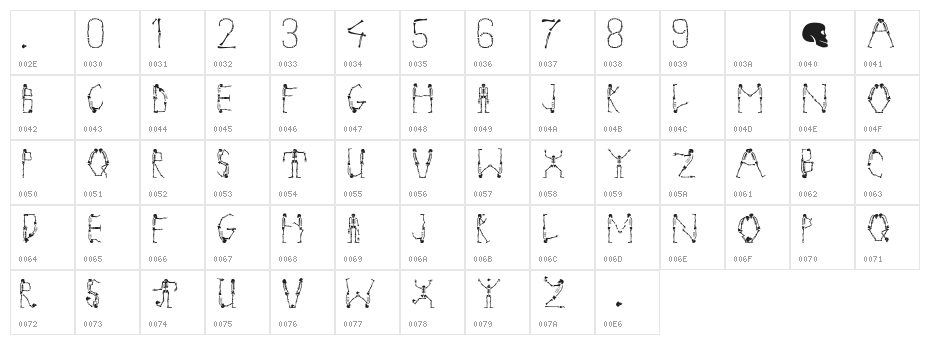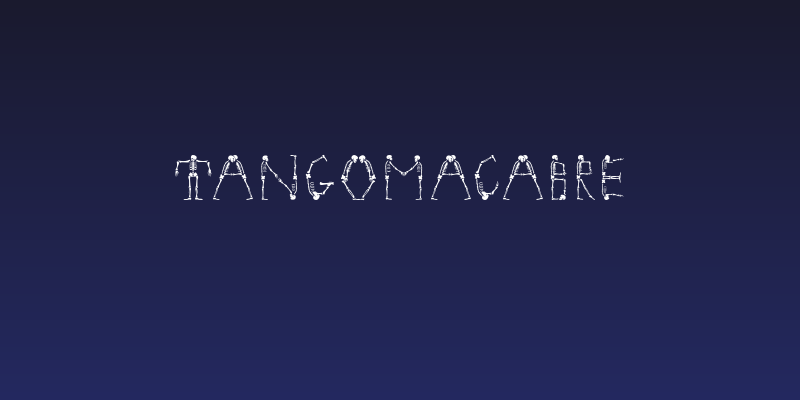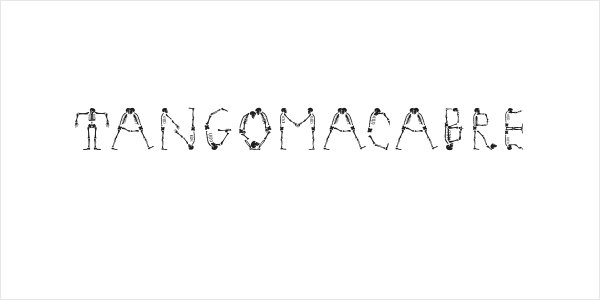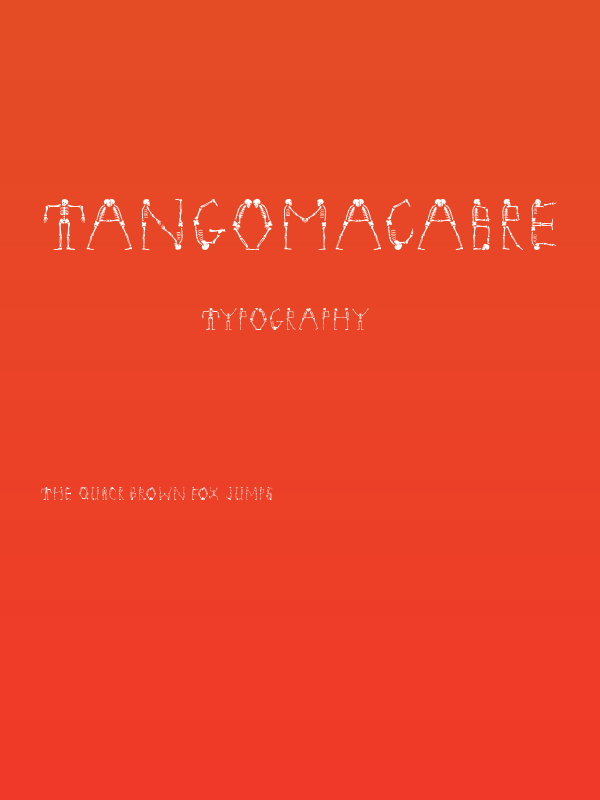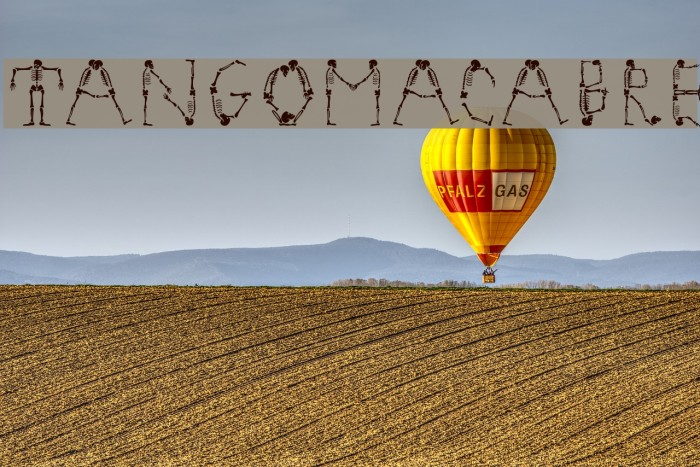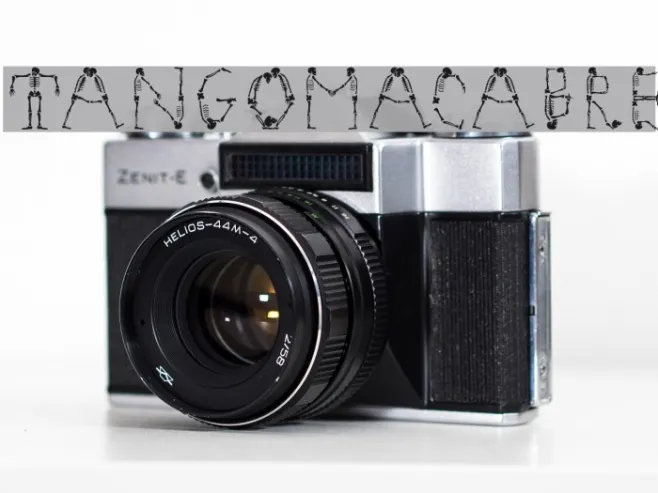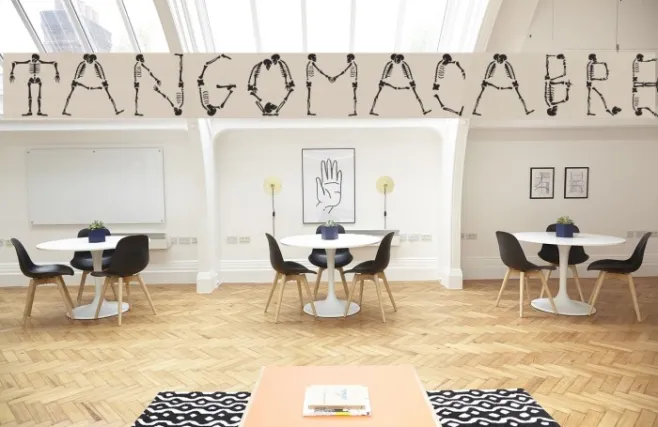
TangoMacabre Font
TangoMacabre Description
This unique and creative font is composed entirely of skeletal figures, forming each letter and number with bones and joints. The design is highly detailed, with each character crafted to resemble a skeleton in various poses. The font has a playful yet eerie aesthetic, making it ideal for themes related to Halloween, horror, or anything that requires a spooky touch. The characters are well-defined, with a consistent style that maintains readability despite the intricate design. The use of skeletons gives the font a decorative and thematic quality, perfect for eye-catching titles and creative projects.
| Proposed Projects | Ideal for Halloween invitations, horror-themed posters, or any project needing a spooky, decorative touch. |